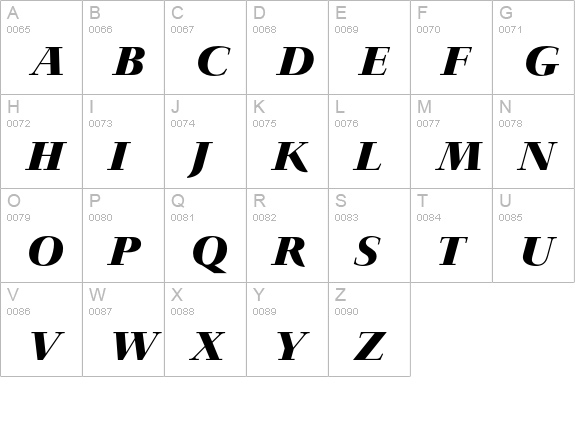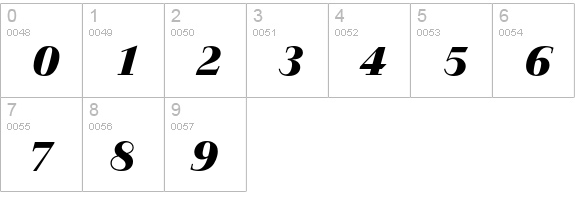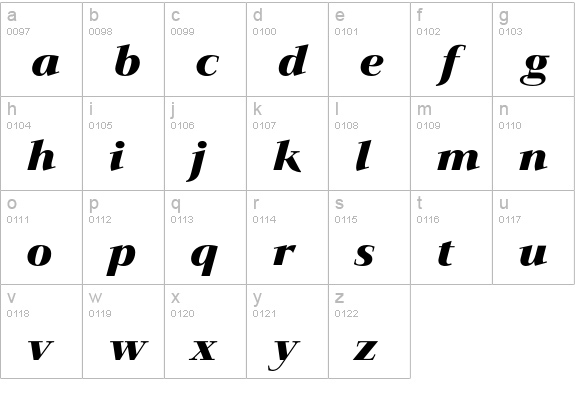
Jaeger-Antiqua Bold Italic Font Details
Jaeger-Antiqua Bold Italic is a strong, high-contrast, italic variant in the Jaeger typeface family \xE2\x80\x94 well suited to headlines, attention-grabbing titles, and strong calls-to-action.
Jaeger-Antiqua Bold Italic is a stunning and elegant font that exudes a sense of timeless sophistication. Crafted with meticulous attention to detail, this typeface seamlessly combines the classic elements of antiqua with a bold and italic twist, resulting in a truly captivating design. With its dynamic and graceful letterforms, Jaeger-Antiqua Bold Italic is perfect for adding a touch of sophistication to any project. Whether used in headlines, titles, or body text, this font commands attention and leaves a lasting impression. The bold weight of Jaeger-Antiqua Bold Italic adds a sense of strength and presence, while the italic style brings a touch of flair and elegance. The combination of these two characteristics creates a harmonious balance, making it versatile for a wide range of design applications. What sets Jaeger-Antiqua Bold Italic apart is not only its exceptional design, but also its accessibility. This font is freely available to download at FontsMarket.com, allowing designers, artists, and creatives alike to effortlessly add this exquisite typeface to their collection. Whether you are working on a print project, a website, or any other creative endeavor, Jaeger-Antiqua Bold Italic is a font that will elevate your designs and captivate your audience. Its timeless appeal and versatility make it a valuable asset for any design toolkit. Download Jaeger-Antiqua Bold Italic for free at FontsMarket.com and unlock the potential of this remarkable font. Let its beauty and elegance inspire your creations and bring your designs to life.